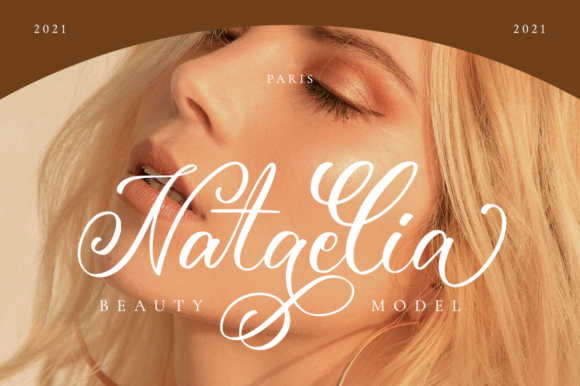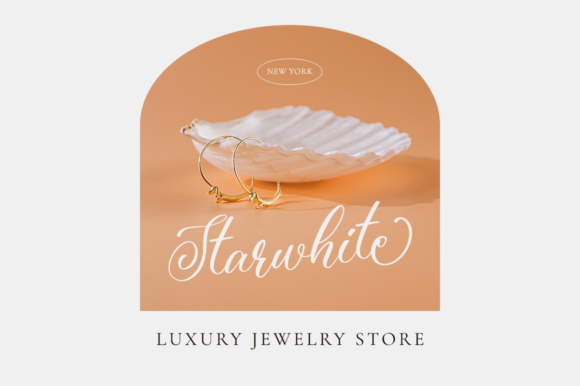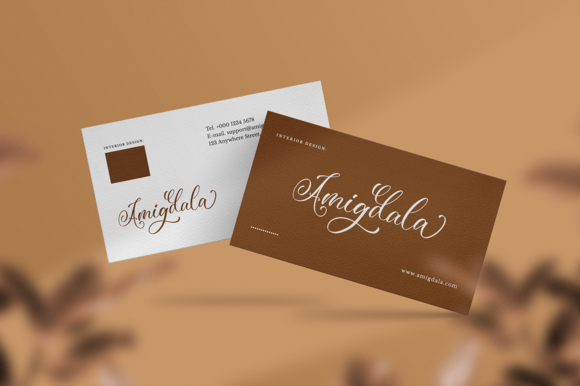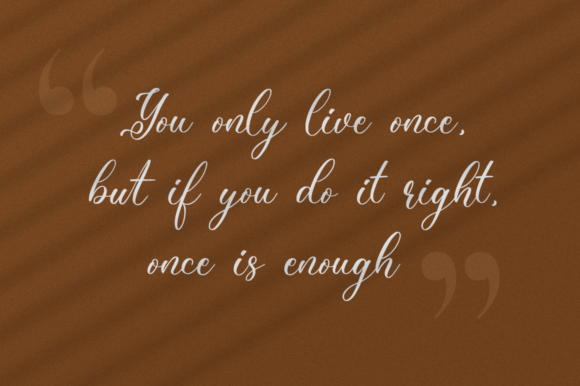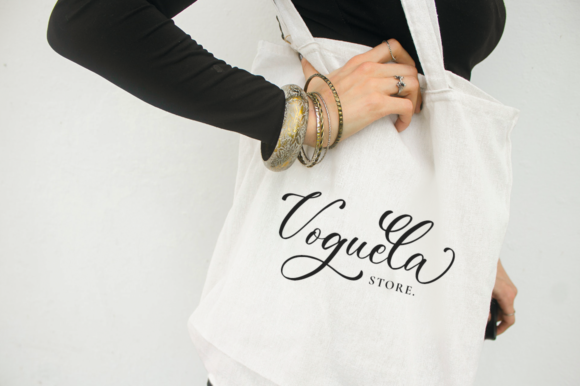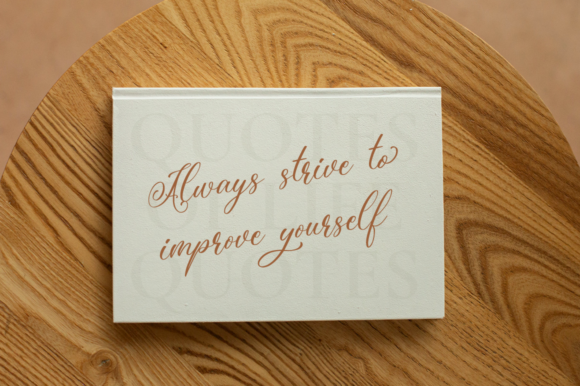
Introducing Amerliosa Font: Elevate Your Designs with Luxurious Calligraphy
Are you looking for a font that can add a touch of luxury and sophistication to your design projects? Look no further than Amerliosa Font, a stunning calligraphy typeface that is sure to impress. With its unique and elegant characters that dance along the baseline, Amerliosa is the perfect choice for designers and crafters who want to create beautiful and eye-catching designs.
What Makes Amerliosa Font So Special?
Amerliosa Font is a ravishing calligraphy typeface that is designed to add a luxury spark to any design project. Its characters are carefully crafted to dance along the baseline, creating a sense of movement and fluidity that is sure to capture the attention of your audience. Whether you’re working on a branding project, a wedding invitation, or a packaging design, Amerliosa Font is the perfect choice for adding a touch of elegance and sophistication.
One of the best things about Amerliosa Font is that it is PUA (Private Use Area) encoded, which means that you can access all of the amazing glyphs and ligatures with ease. This makes it easy to create beautiful and intricate designs without having to spend hours searching for the right characters. With Amerliosa Font, you can focus on creating stunning designs that showcase your creativity and skill.
Amerliosa Font is perfect for designers and crafters who want to create beautiful and unique designs. Whether you’re working on a digital project or a physical one, this font is sure to impress. Its elegant and luxurious feel makes it perfect for a wide range of design projects, including:
- Signage and display design
- Digital graphics and social media assets
- Crafting and scrapbooking projects
Key Features of Amerliosa Font
Here are some of the key features that make Amerliosa Font so special:
- Ravishing calligraphy typeface with characters that dance along the baseline
- Luxurious and elegant feel perfect for high-end designs
- Perfect for a wide range of design projects, from digital to physical
Tips for Using Amerliosa Font
Here are some tips for using Amerliosa Font in your design projects:
- Use it as a headline font to add a touch of luxury and sophistication
- Pair it with a simple sans-serif font for a beautiful contrast
- Use it to create beautiful and intricate designs, such as wedding invitations and packaging
Amerliosa Font is a stunning calligraphy typeface that is sure to elevate your designs to the next level. With its luxurious and elegant feel, PUA encoding, and ease of use, it’s the perfect choice for designers and crafters who want to create beautiful and eye-catching designs. Whether you’re working on a digital project or a physical one, Amerliosa Font is sure to impress. So why wait? Download Amerliosa Font today and start creating stunning designs that showcase your creativity and skill!